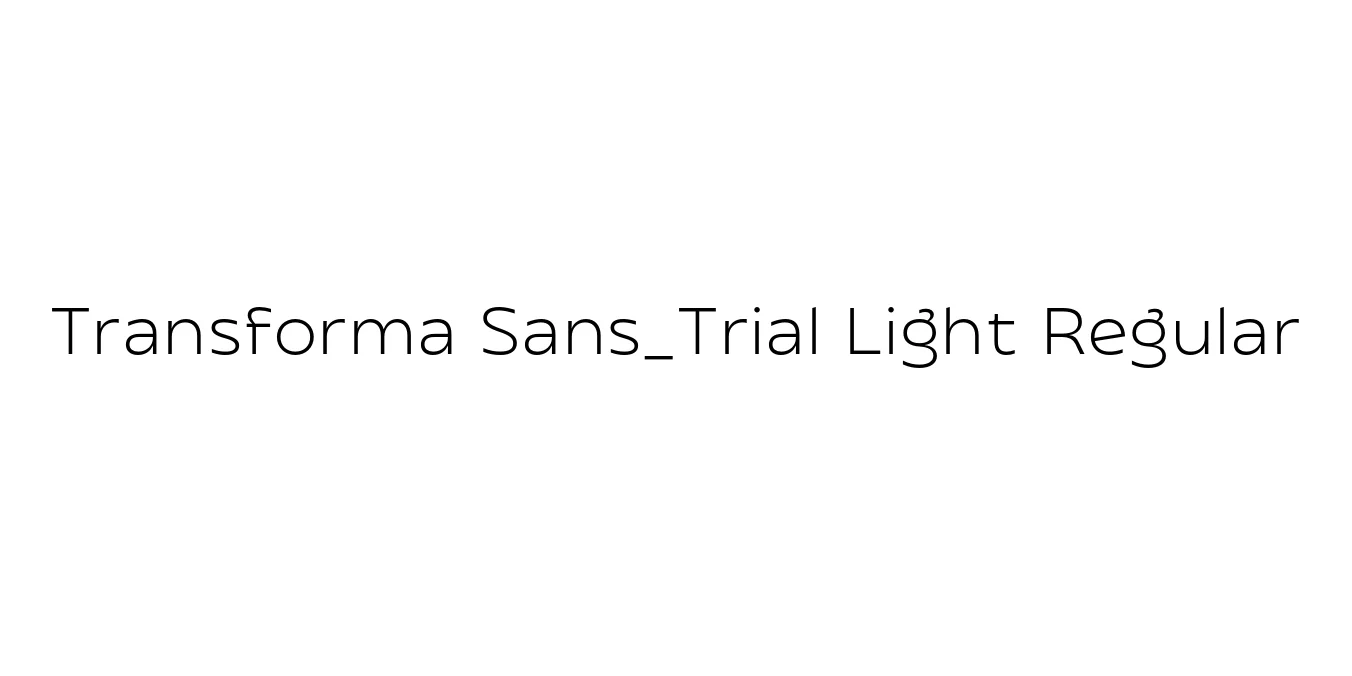
Transforma Sans_Trial Light Regular
Designed by Coert De Decker (Bolt Graphics)
Transforma Sans is a versatile and contemporary typeface family designed by Coert De Decker. It forms part of the larger Transforma superfamily, which explores the boundaries between Sans, Script, and Serif styles to create a cohesive design ecosystem. The Light Regular weight offers a clean, airy aesthetic that emphasizes geometric precision and modern minimalism, making it ideal for sophisticated design projects that require a touch of elegance without being overbearing.
This trial version allows designers to explore the font's high-quality kerning and balanced letterforms before committing to a full commercial license. With its neutral yet distinct personality, Transforma Sans Trial Light Regular excels in digital interfaces and editorial layouts where clarity and breathability are paramount. It serves as a bridge between technical accuracy and aesthetic elegance, providing a professional look for various creative applications.
Transforma Sans_Trial Light Regular Best Uses
Perfect for high-end magazines, digital publications, and long-form body text.
Clean and highly readable for mobile applications and modern web interfaces.
Ideal for minimalist brand identities and contemporary logo designs.
Suitable for professional presentations, reports, and internal documentation.